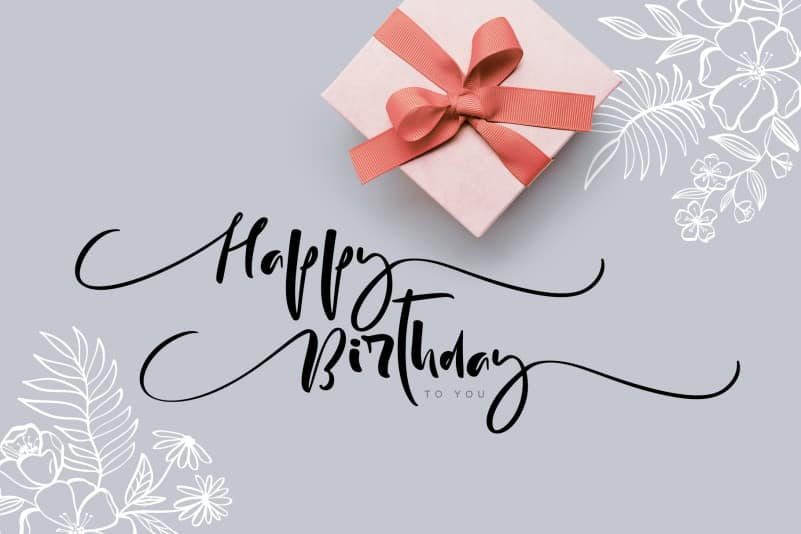
Mulidey Font
Mulidey Calligraphy Font
This is a distinct graceful script typeface from designer Takiy. Mulidey come with 200+ glyphs. The alternative characters were divided into several Open Type features such as Swash, Stylistic Sets, Stylistic Alternates, Contextual Alternates. The Open Type features can be accessed by using Open Type savvy programs such as Adobe Illustrator, Adobe InDesign, Adobe Photoshop Corel Draw X version, And Microsoft Word. And this Font has given PUA unicode (specially coded fonts). so that all the alternate characters can easily be accessed in full by a craftsman or designer.